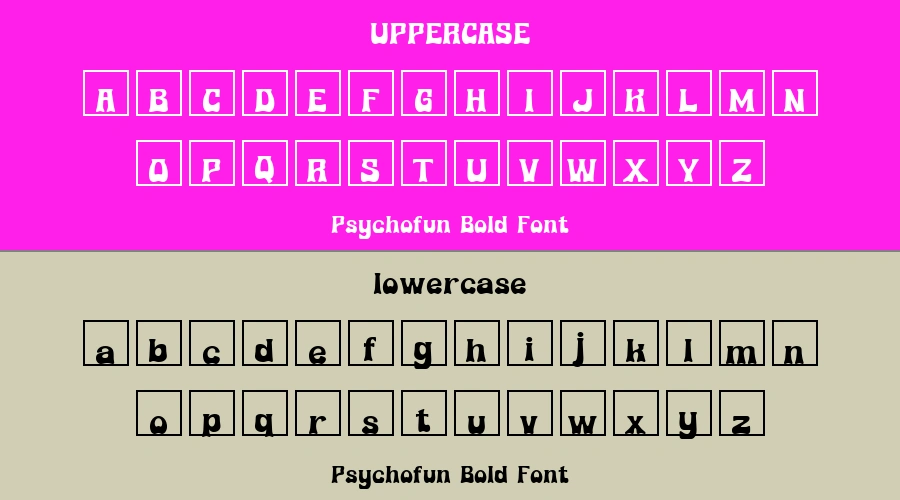
About Psychofun Bold Font
Psychofun Bold Font embodies typographic excellence through its masterful combination of playful elements and legibility. Created for packaging hero, this typeface delivers exceptional accuracy and industry recognition across all applications. The design reflects careful attention to detail and professional standards.
Advanced capabilities include distinctive ink flow effects and versatile text figures, giving designers creative control. When used in hero imagery, Psychofun Bold Font exhibits remarkable kerning accuracy. The harmonious balance between loop structure and creative versatility sets this typeface apart.